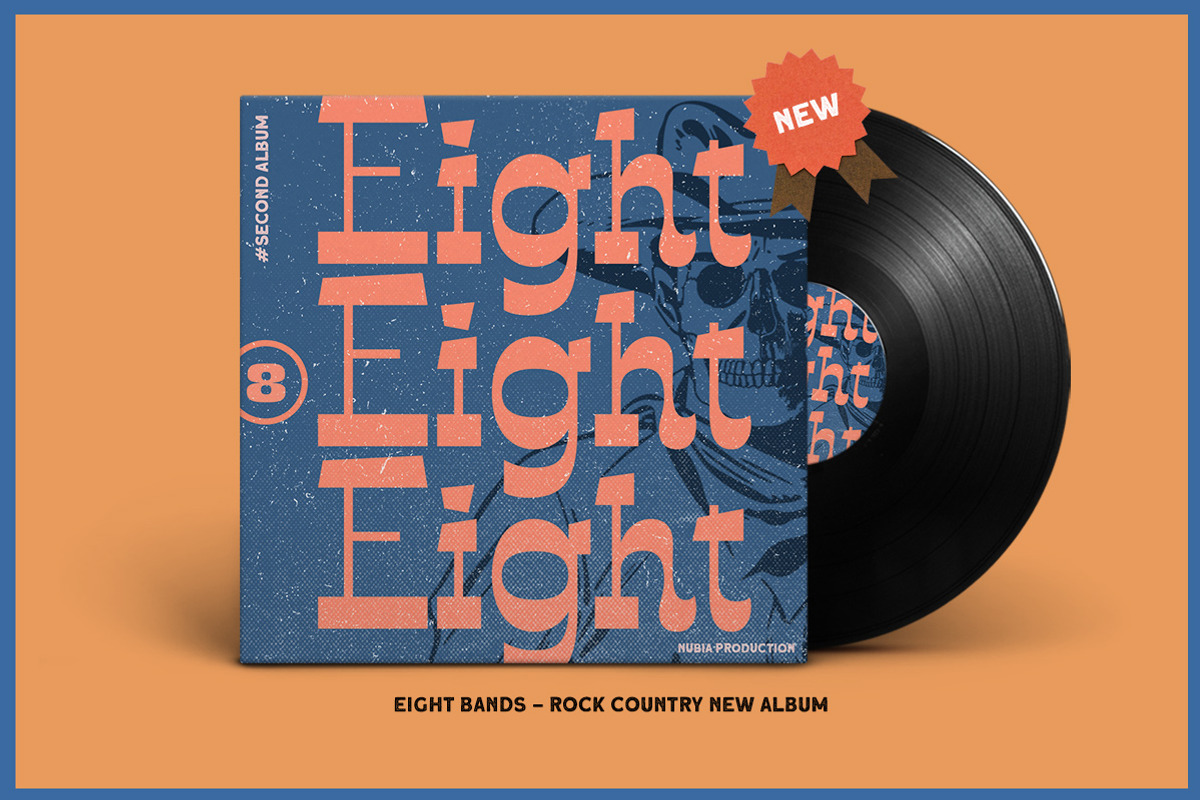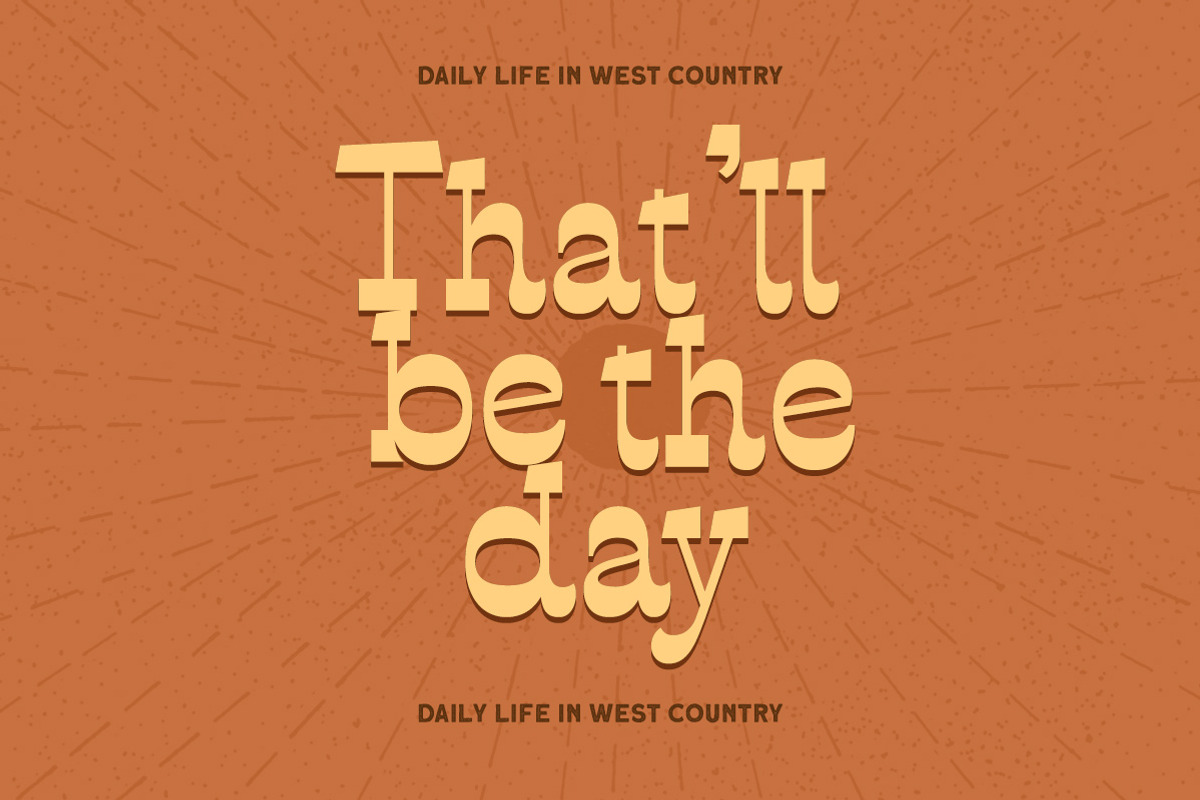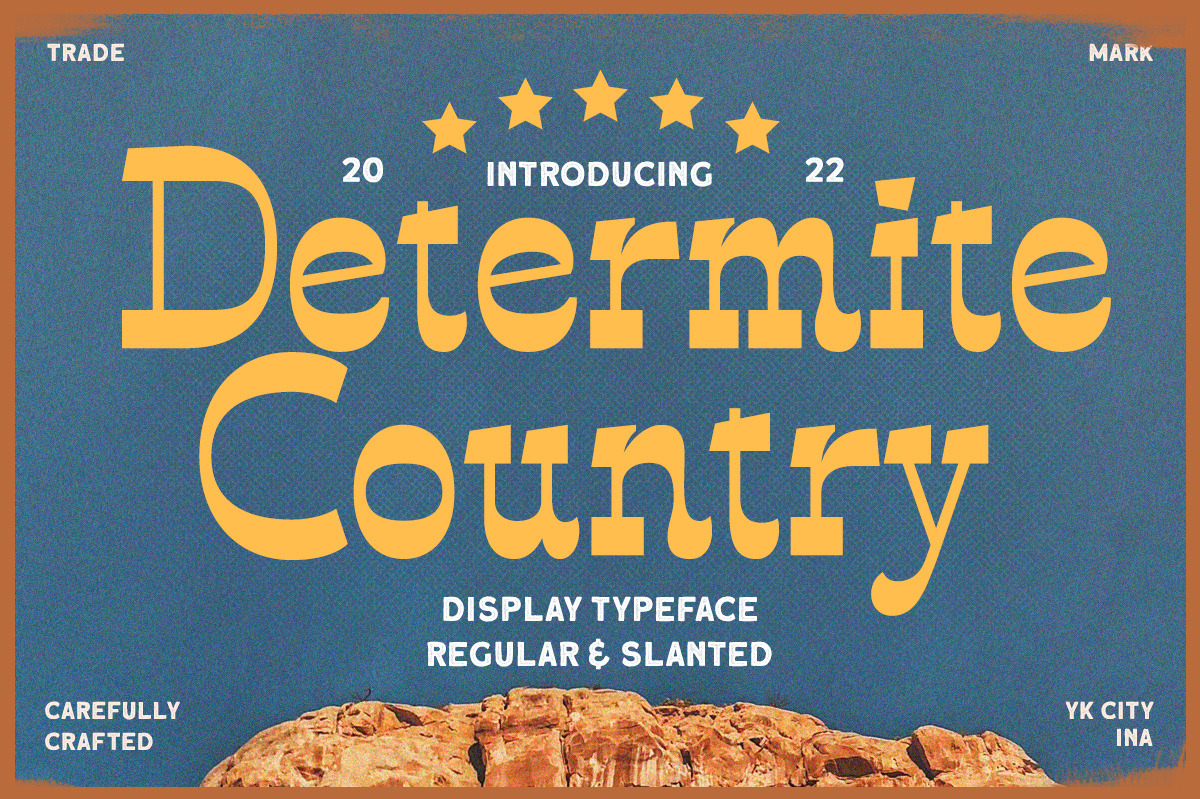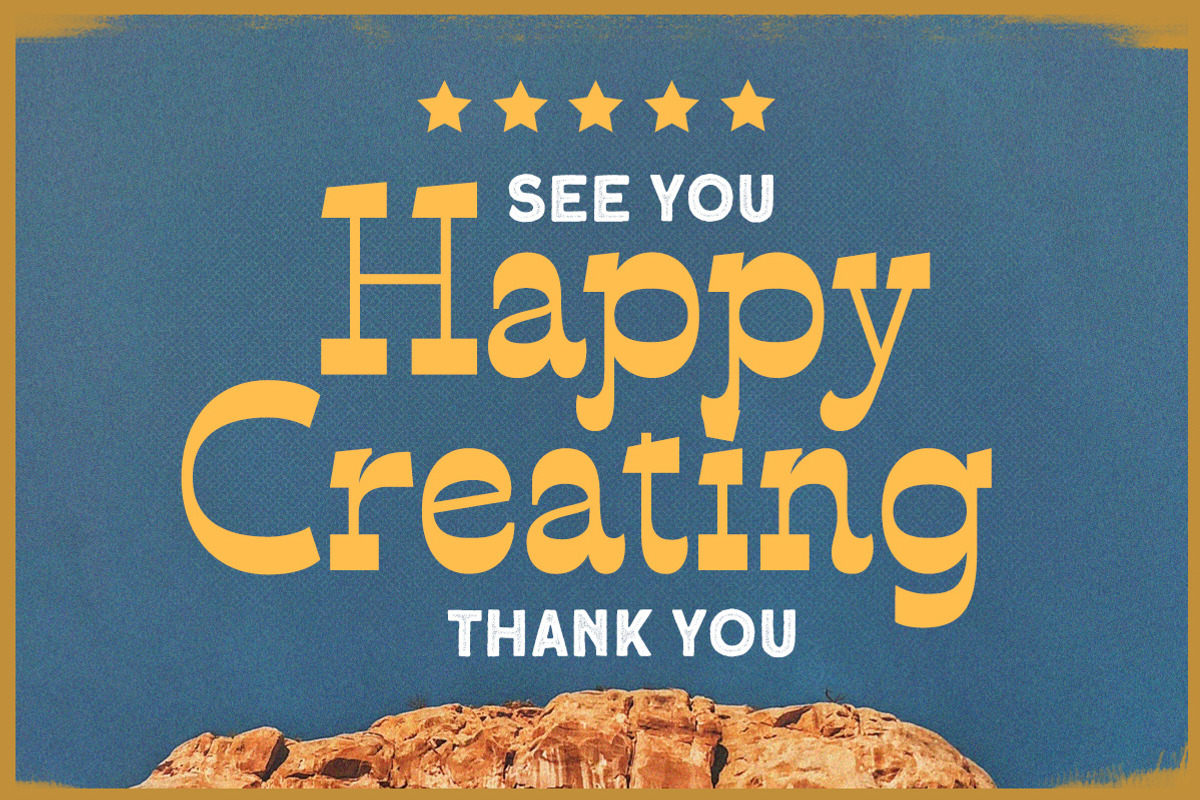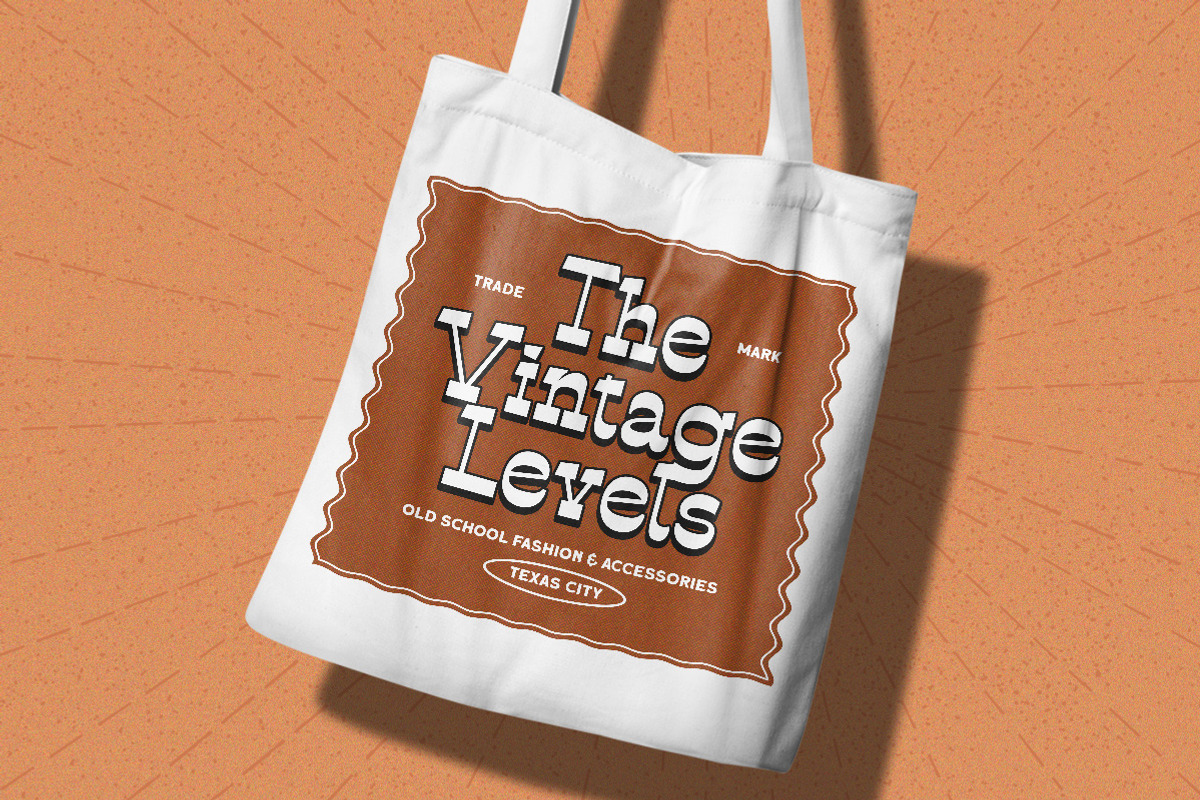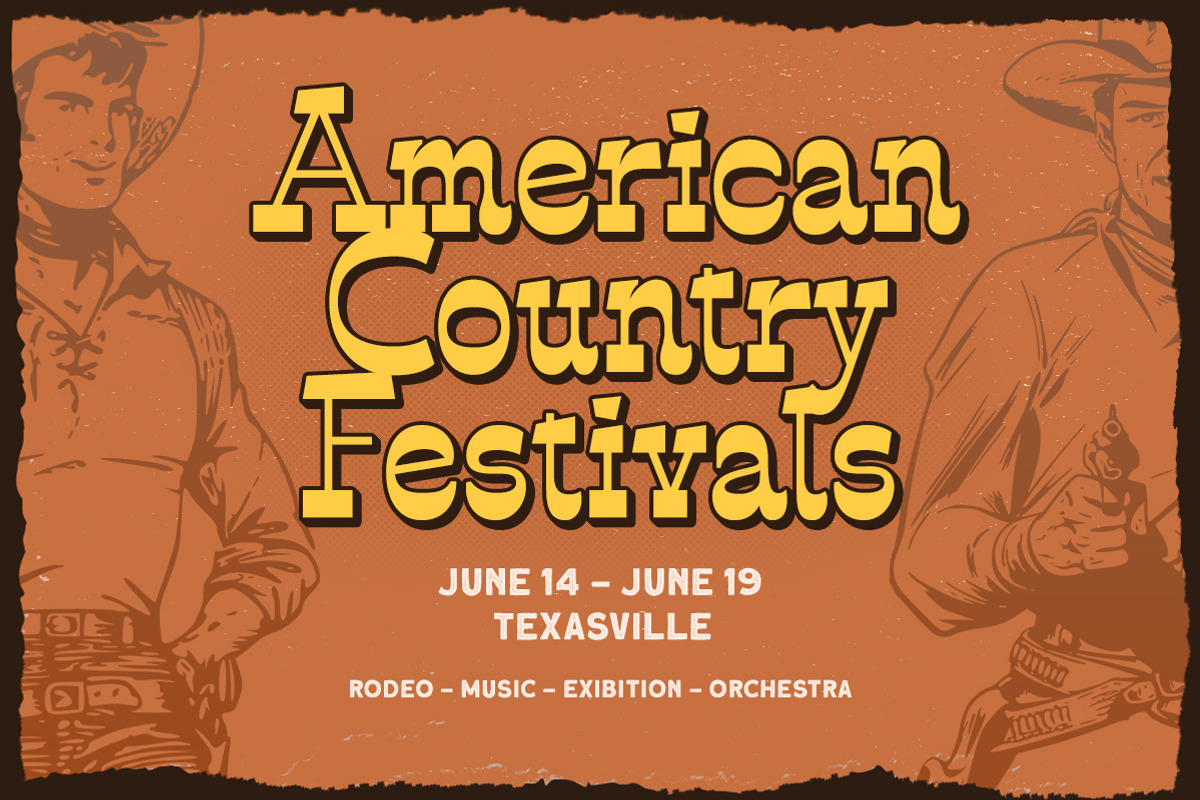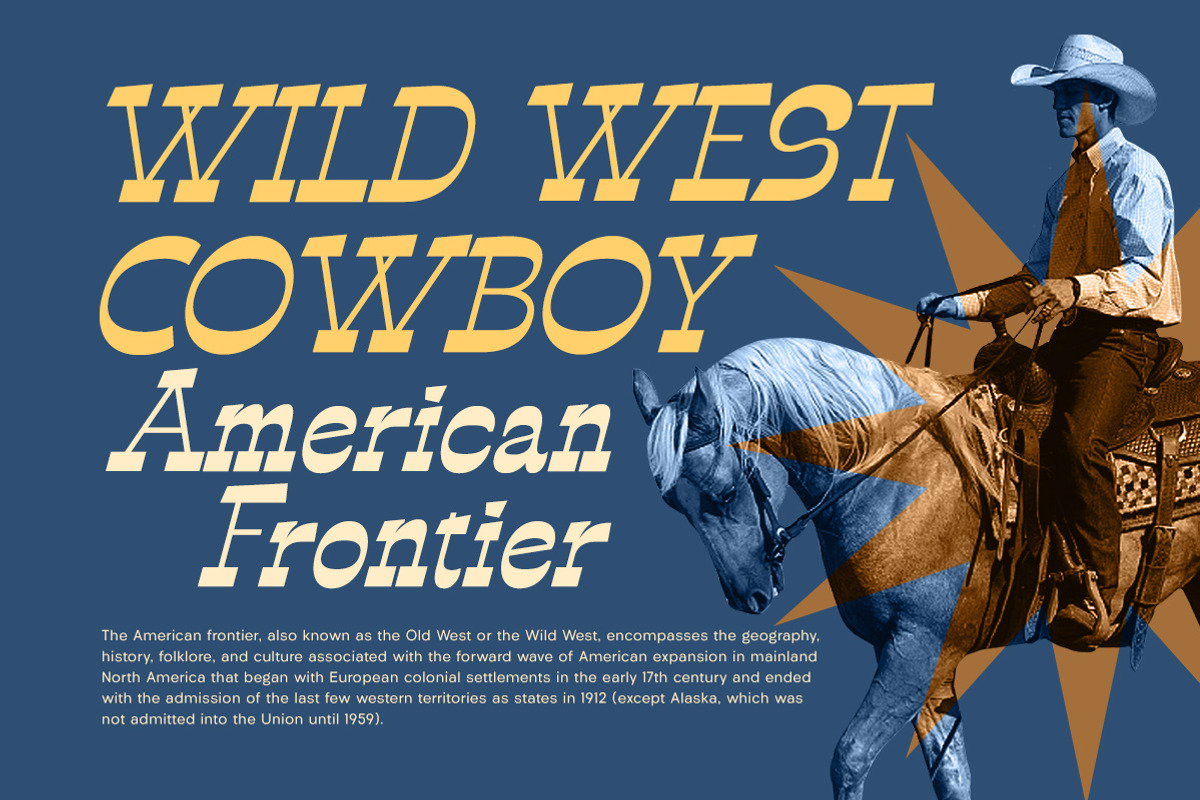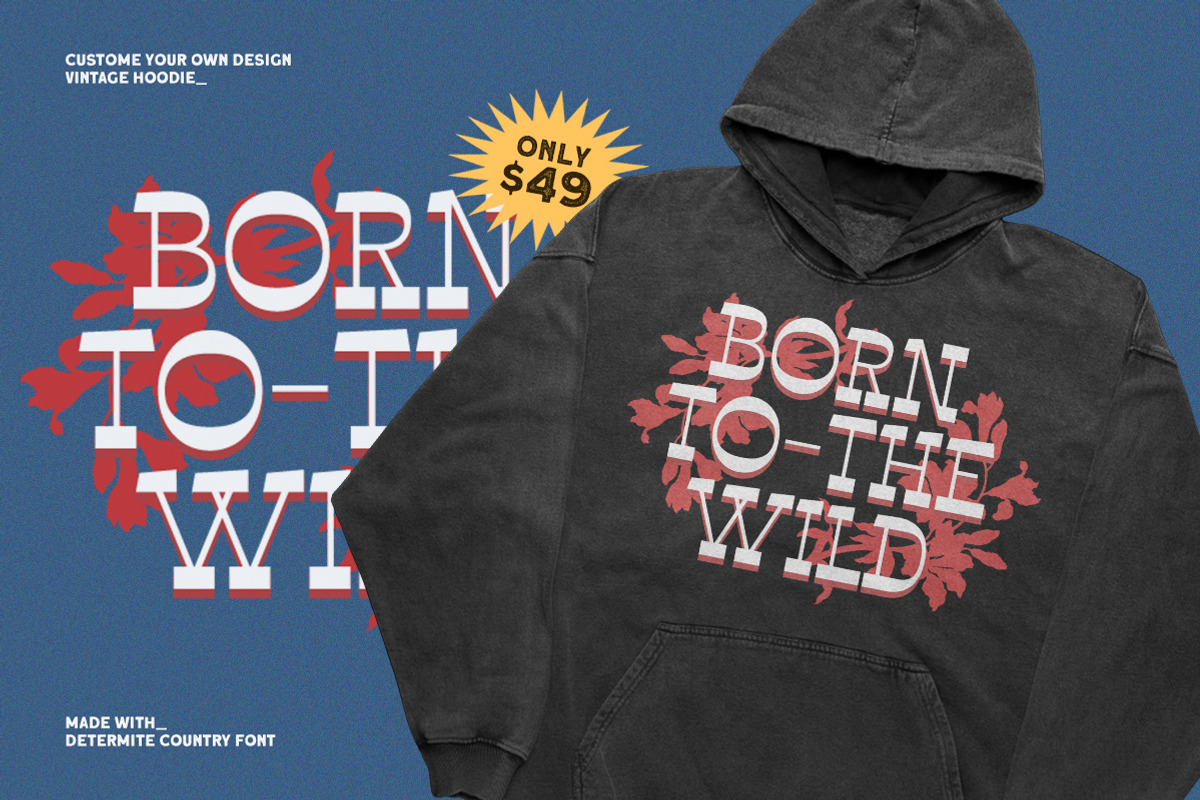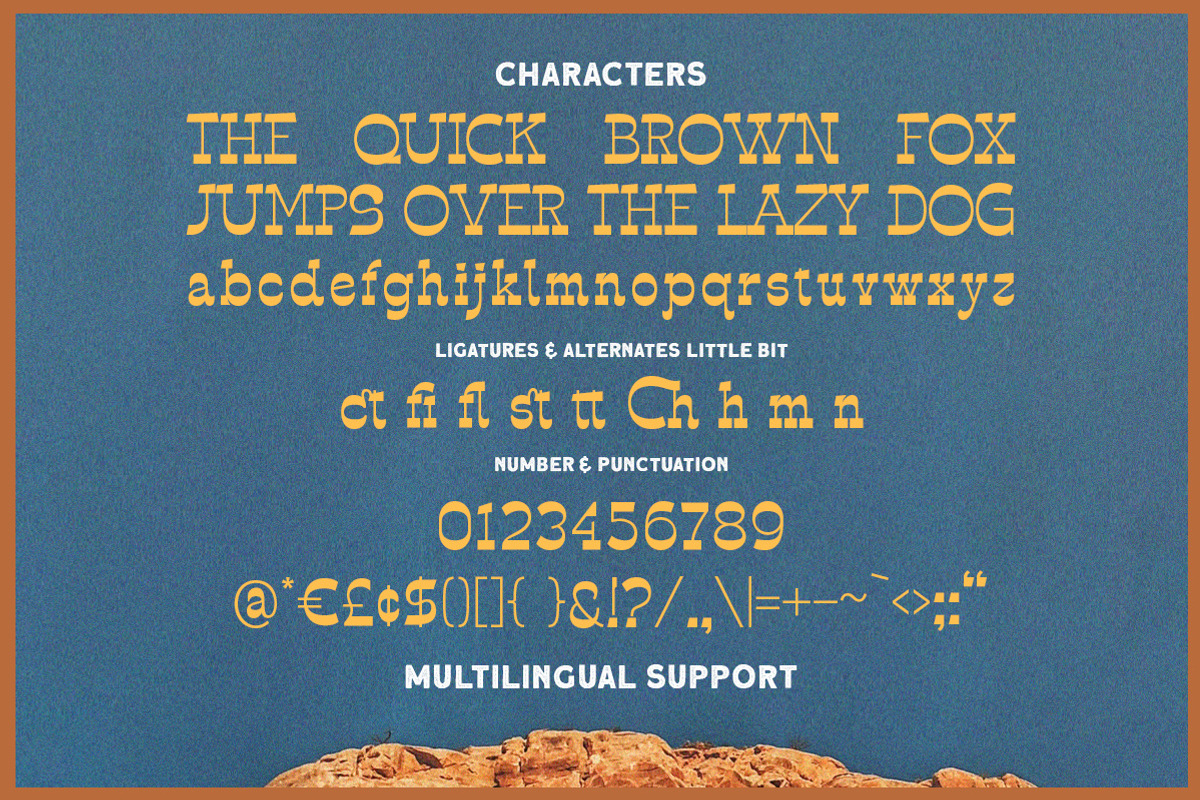
Determite Country - Display Typeface
Introducing, Determite - A Western Display Typeface. The reverse contrast make this font looks different and stand out from the crowd. Suitable for design needs with a touch of classic western, especially in logo, and the other various formal forms such as invitations, labels, logos, magazines, books, greeting / wedding cards, packaging, fashion, make up, stationery, novels, labels or any type of advertising purpose.
- lowercase and uppercase
- regular and slanted